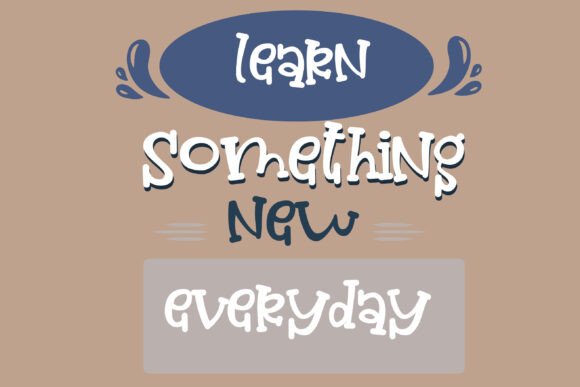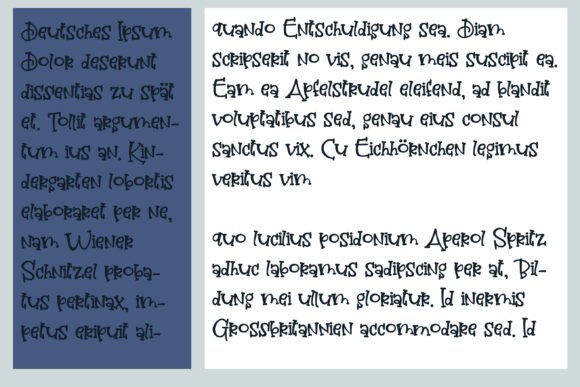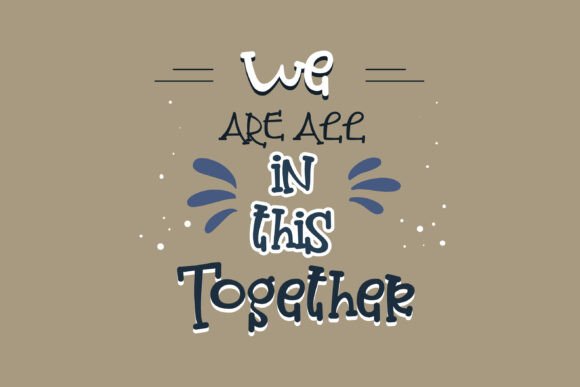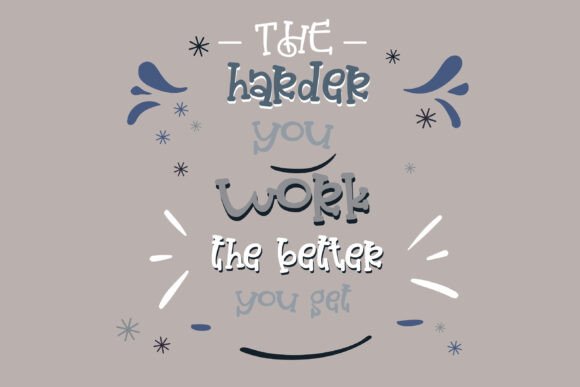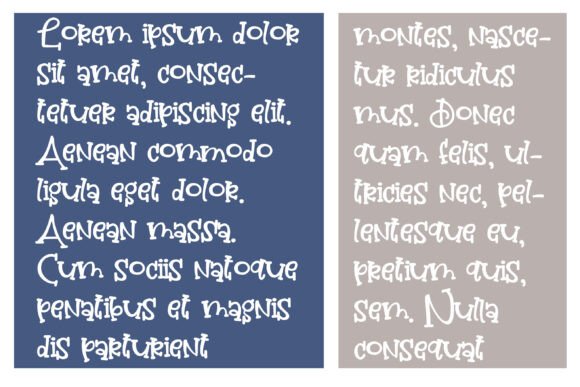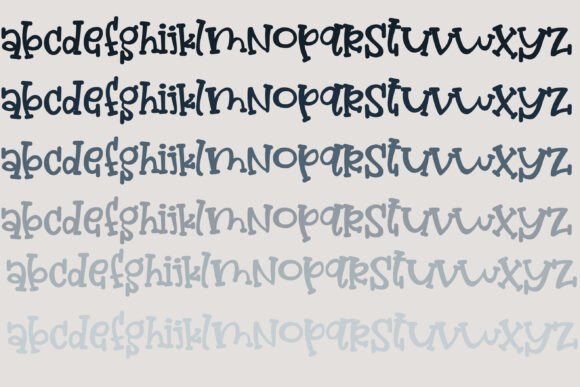
Introduction to Pretty Iggy Font
Have you ever been working on a creative project and suddenly, the perfect font pops up in your mind? That’s exactly what happened to many designers when they stumbled upon the Pretty Iggy Font. This beautiful hand-crafted font is a game-changer for any design project that requires a touch of whimsy and elegance.
With its hand-crafted slab serifs and bold version, the Pretty Iggy Font is a versatile design resource that can be used for a variety of purposes, from invitations and greeting cards to digital designs with a transparent background. Its high-quality design makes it a valuable asset for any designer looking to add a personal touch to their work.
Key Features of Pretty Iggy Font
- High-quality design for creative projects, perfect for illustrations and graphics.
- Includes a transparent background for easy integration with various design elements.
- Features a unique, hand-drawn style that adds a personal touch to any creative project.
Honest Review: Pretty Iggy Font
As a designer, I’m always on the lookout for high-quality design resources to elevate my creative projects. The Pretty Iggy Font is a great find, and I’m excited to share my honest review with you.
- ✨ The font is highly customizable, with a range of weights and styles to choose from.
- ✨ The transparent background option is a game-changer for designers who want to create visually appealing graphics and designs.
- ⚠️ The font may not be suitable for all design projects, as it’s primarily designed for creative and playful applications.
Overall, I’m impressed with the Pretty Iggy Font. It’s a high-quality design resource that’s perfect for creative projects that require a touch of whimsy and personality. While it may have some limitations, I think it’s well worth the download – especially considering it’s free!
The Pretty Iggy Font is commonly used for creating titles, headings, and captions for creative projects such as blog posts, social media graphics, and advertising materials.
Is the Pretty Iggy Font a high-quality font?
Yes, the Pretty Iggy Font is a high-quality font designed for use in a variety of creative projects. The font features a unique and elegant design, making it an excellent choice for designers looking to add a touch of sophistication to their work. The font’s high quality is reflected in its crisp, clear lines and well-spaced characters, ensuring that your designs look professional and polished.